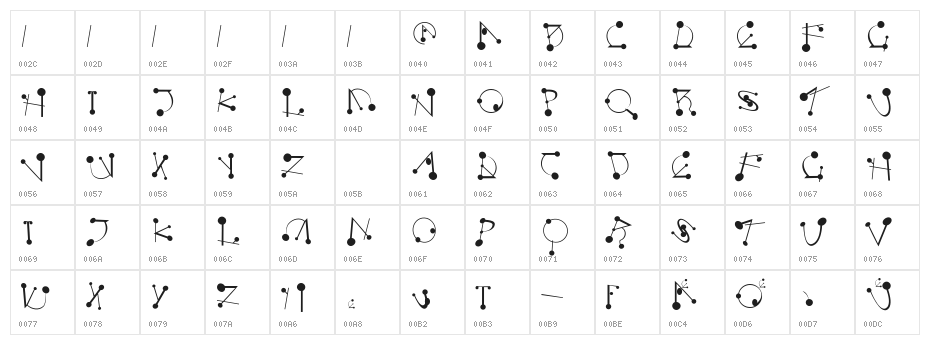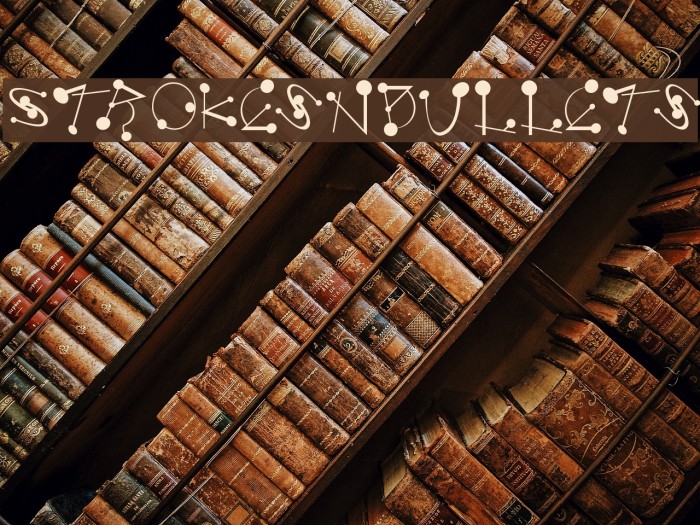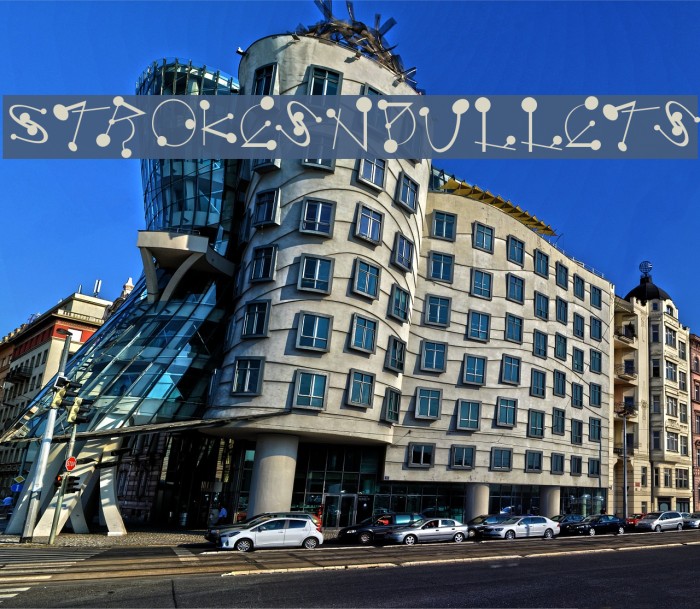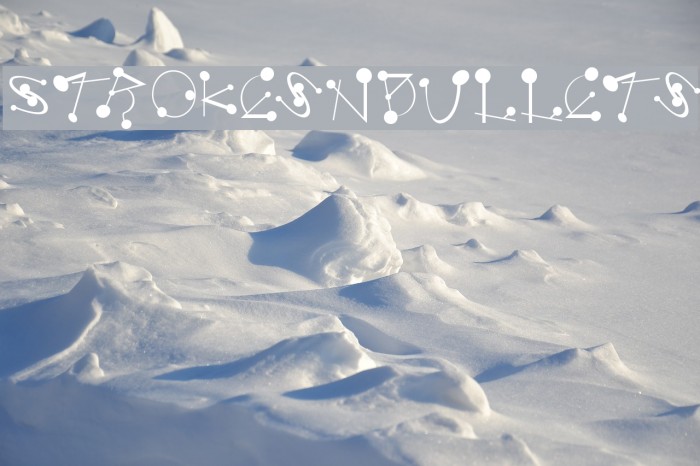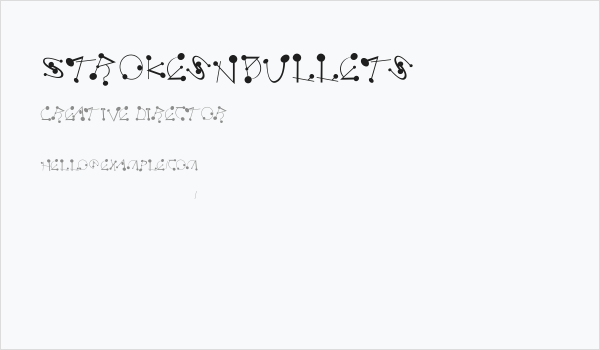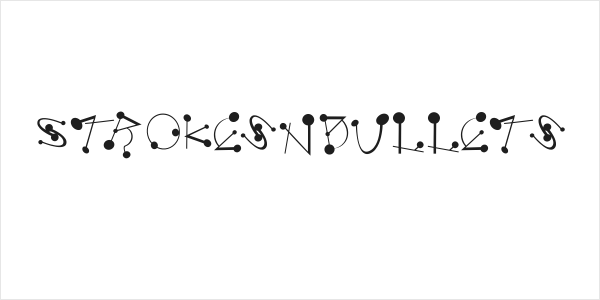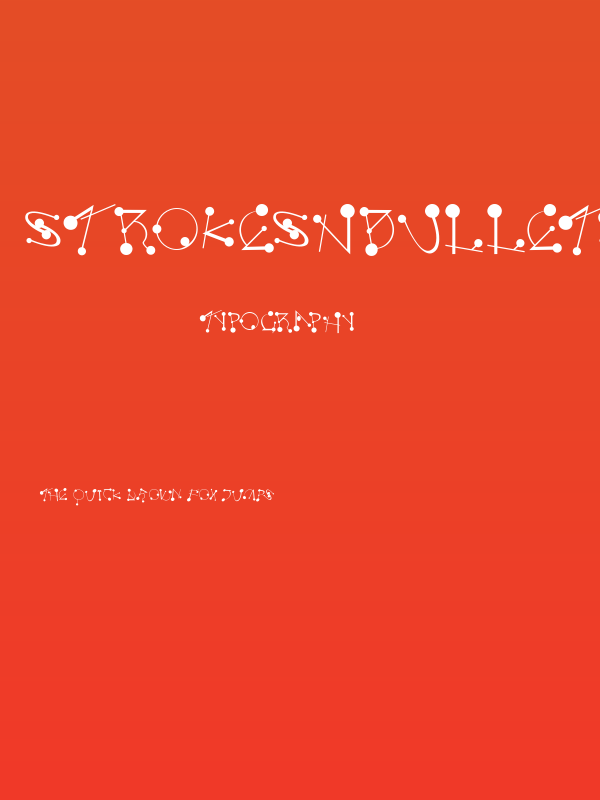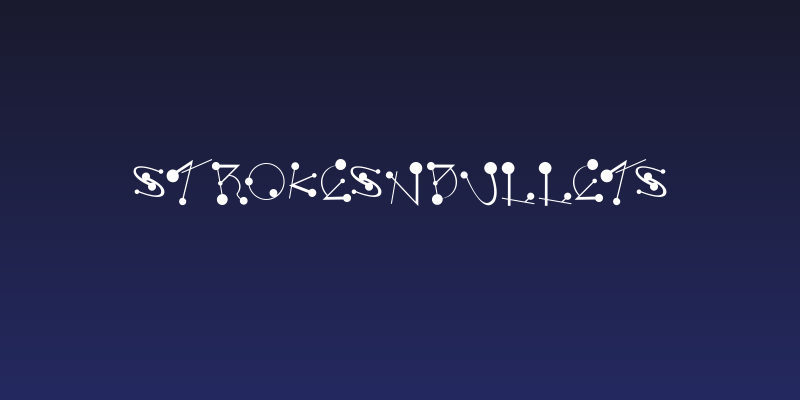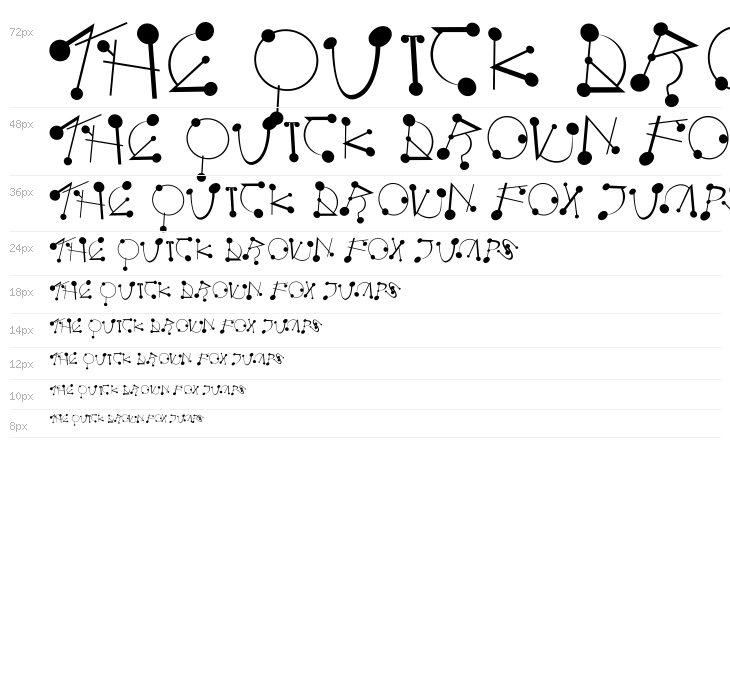
StrokesNBullets Font
StrokesNBullets Description
This font features a unique and playful design, characterized by its use of bold dots and thin connecting lines. Each letter is crafted with a combination of geometric shapes and linear strokes, creating a whimsical and modern appearance. The uppercase and lowercase letters maintain a consistent style, with the dots serving as focal points that add a decorative touch. The numbers and special characters follow the same design principles, ensuring a cohesive look across all glyphs. This font's distinct style makes it stand out, offering a creative and artistic flair.
Use CaseLogos, Posters, Invitations
Proposed ProjectsIdeal for creative projects such as children's books, playful branding, artistic posters, and unique invitations.